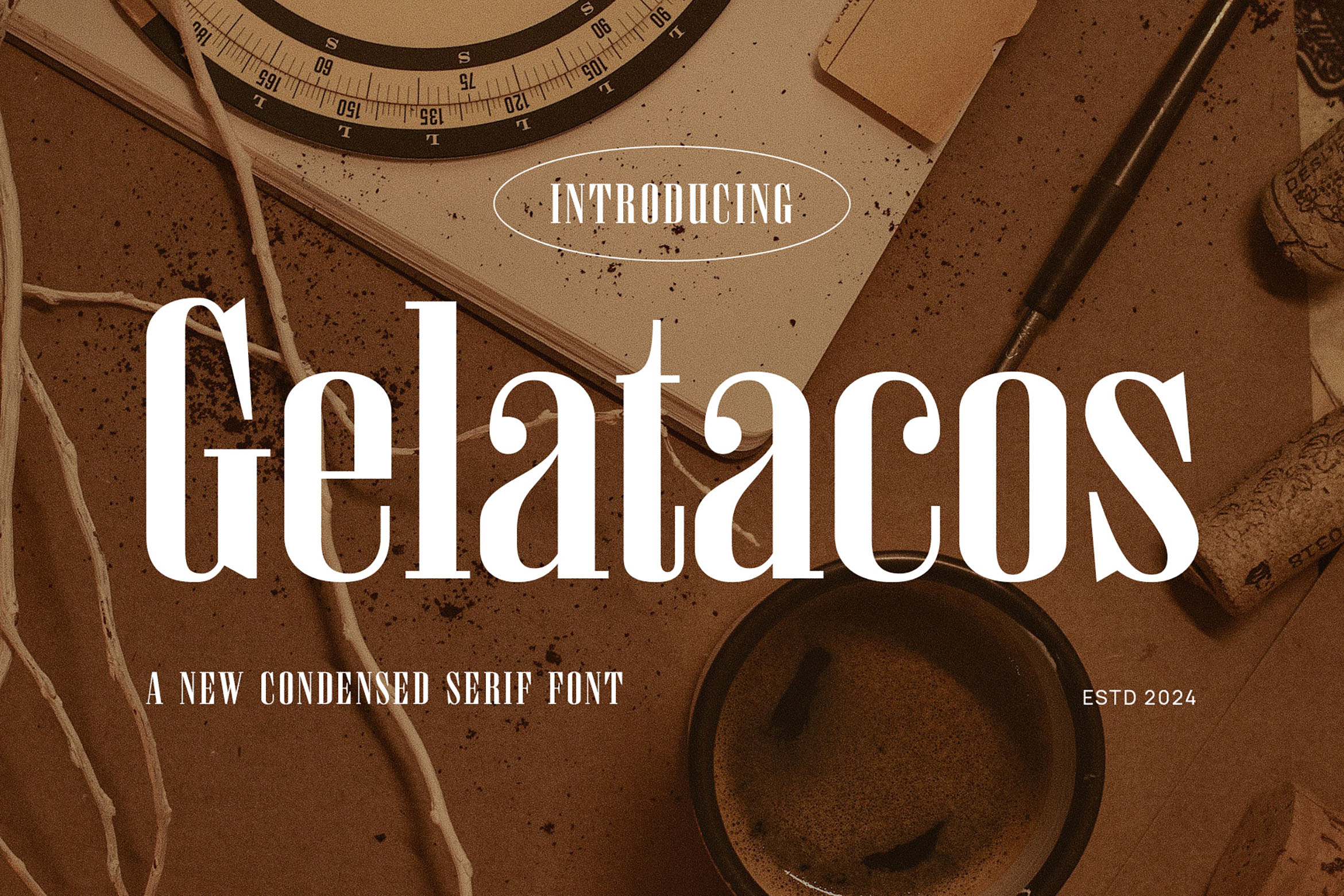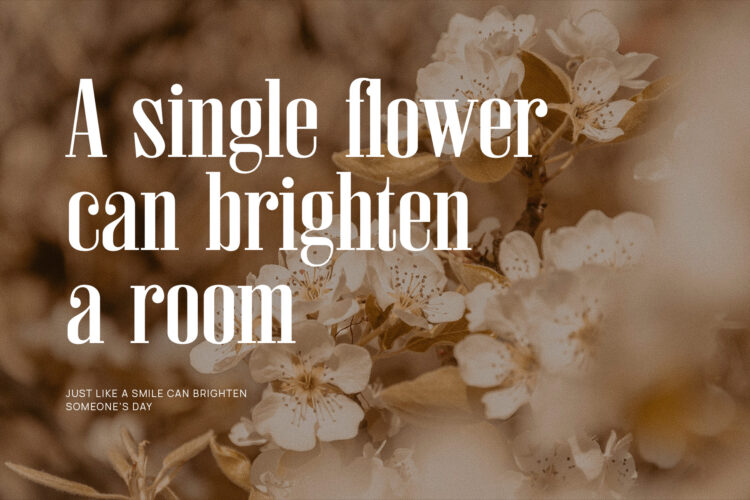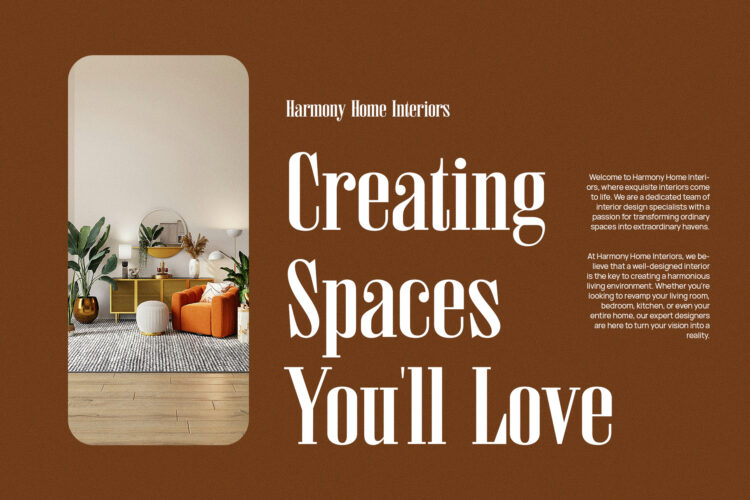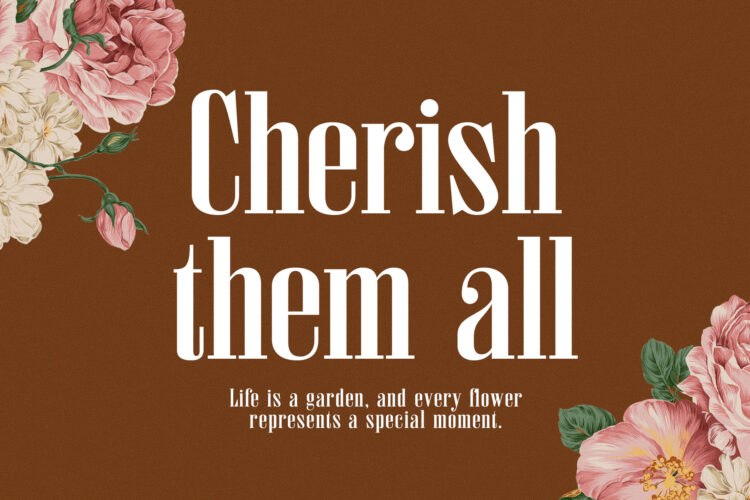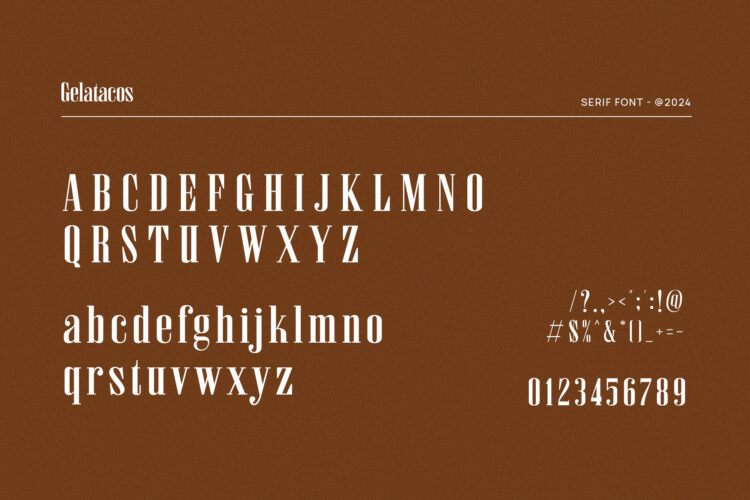
Introducing our new Gelatacos, modern serif font with elegant style this is perfect for branding, logos, invitation, magazines, product packaging and more.
Gelatacos – Classy & Stylish Serif